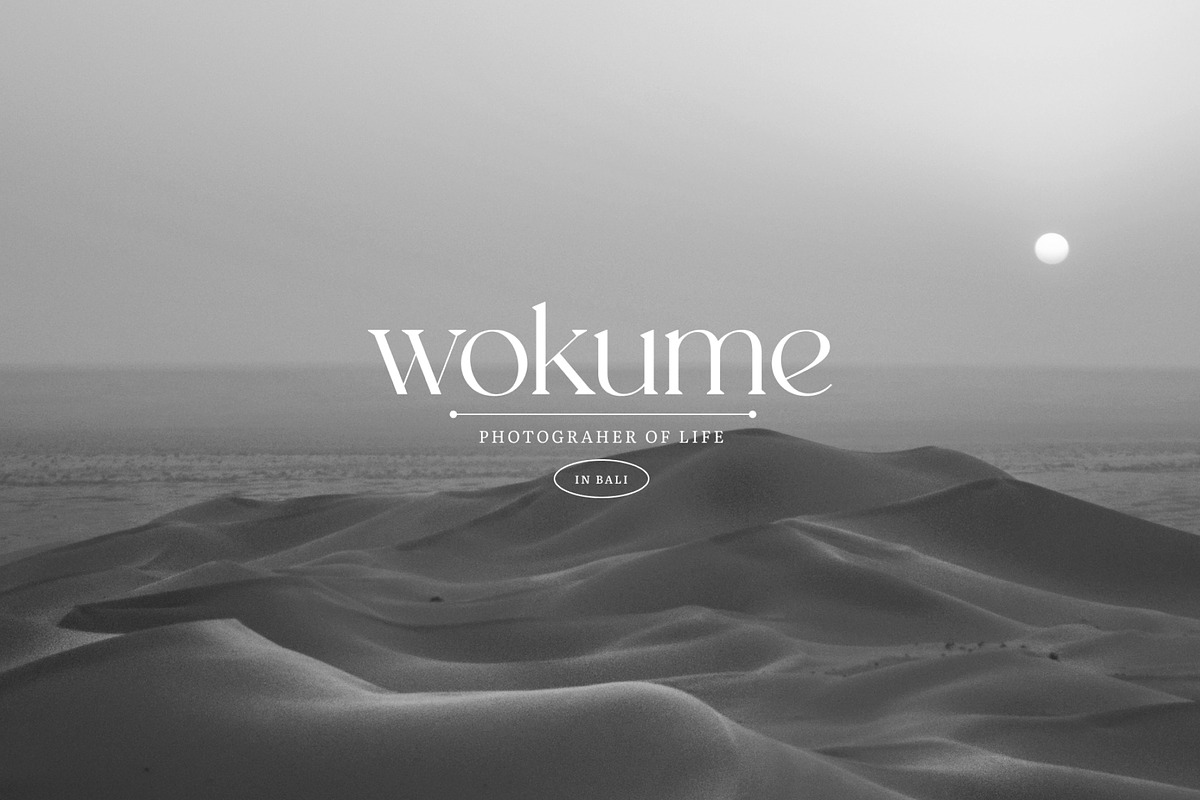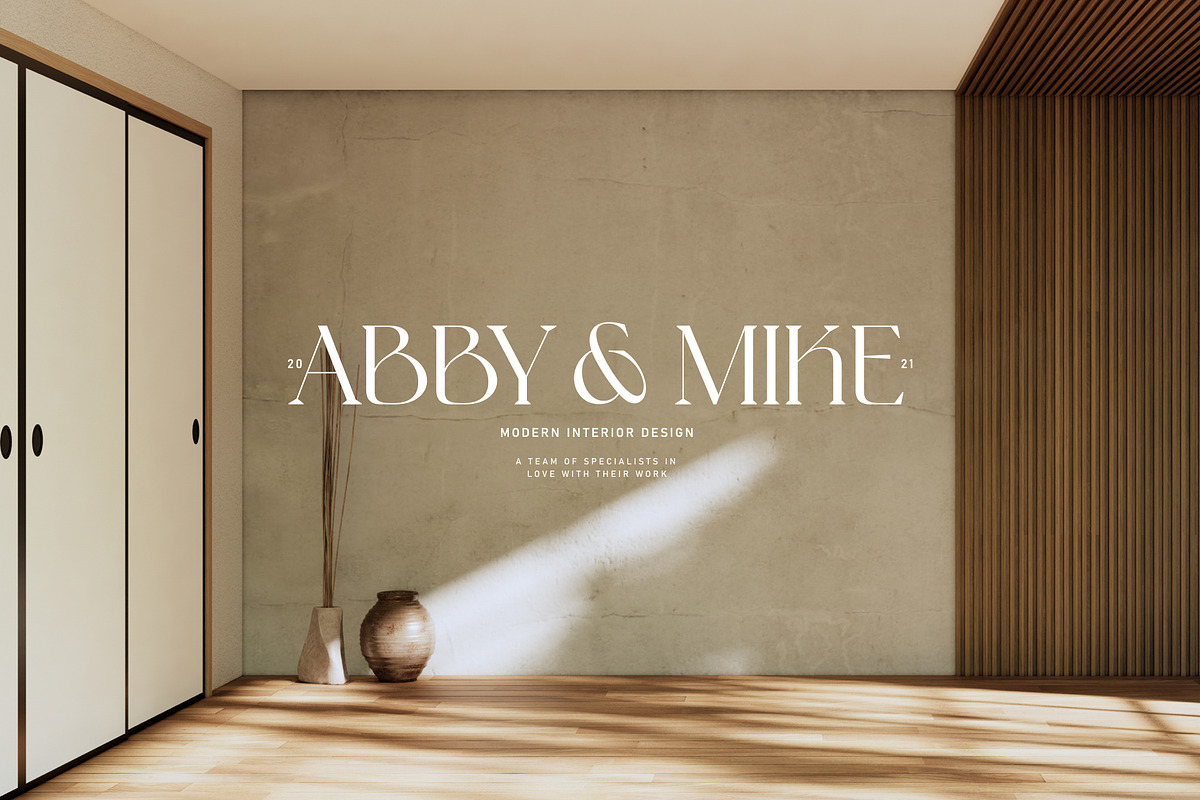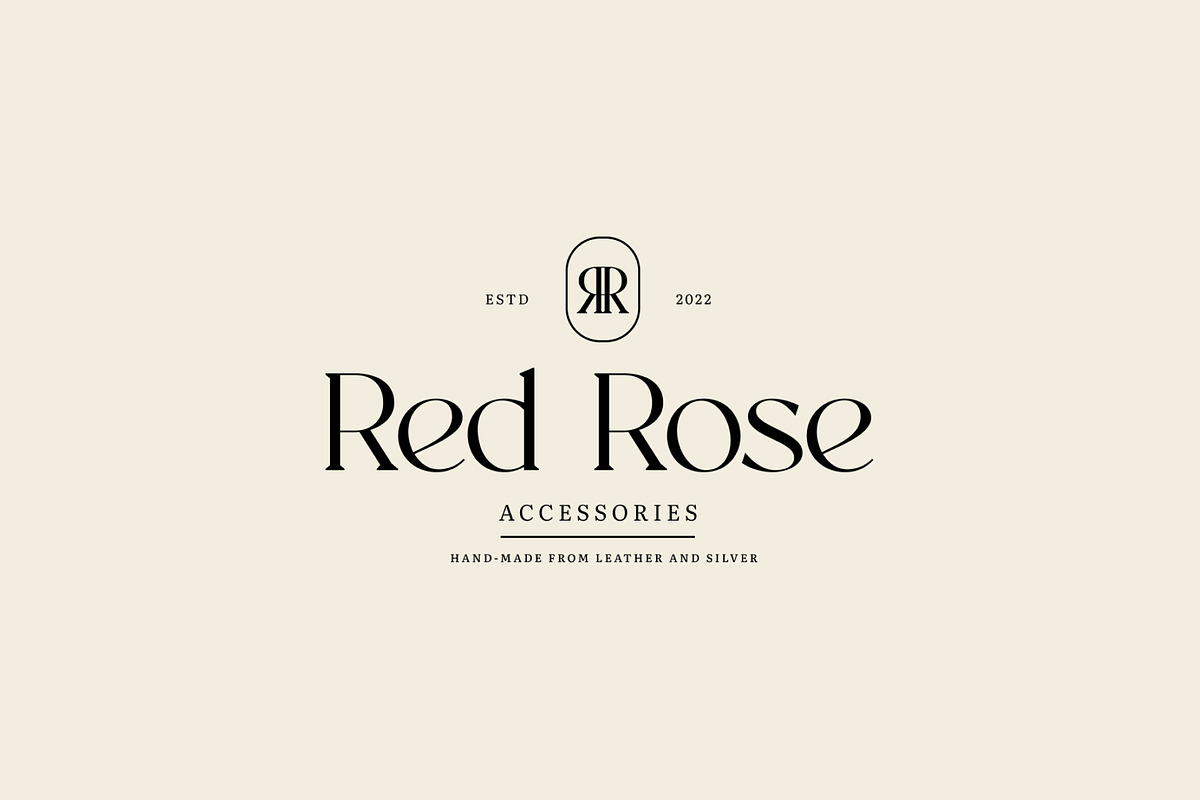
NT Fabulous is a new serif font. This elegant font needs to be in your collection and is perfect for your next luxury design project. It supports over 200 Latin-based languages. It exudes a luxurious yet readable feel, making it perfect for branding, logos, invitations, and marketing designs.